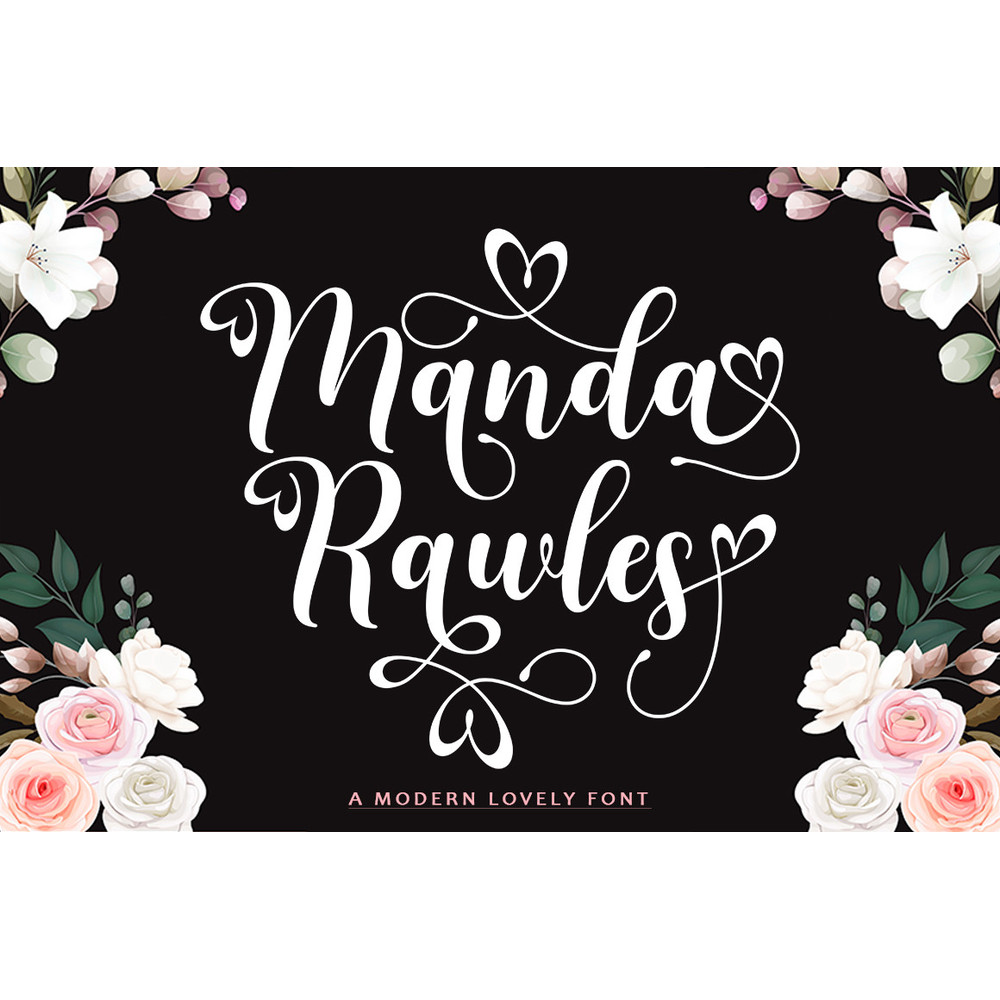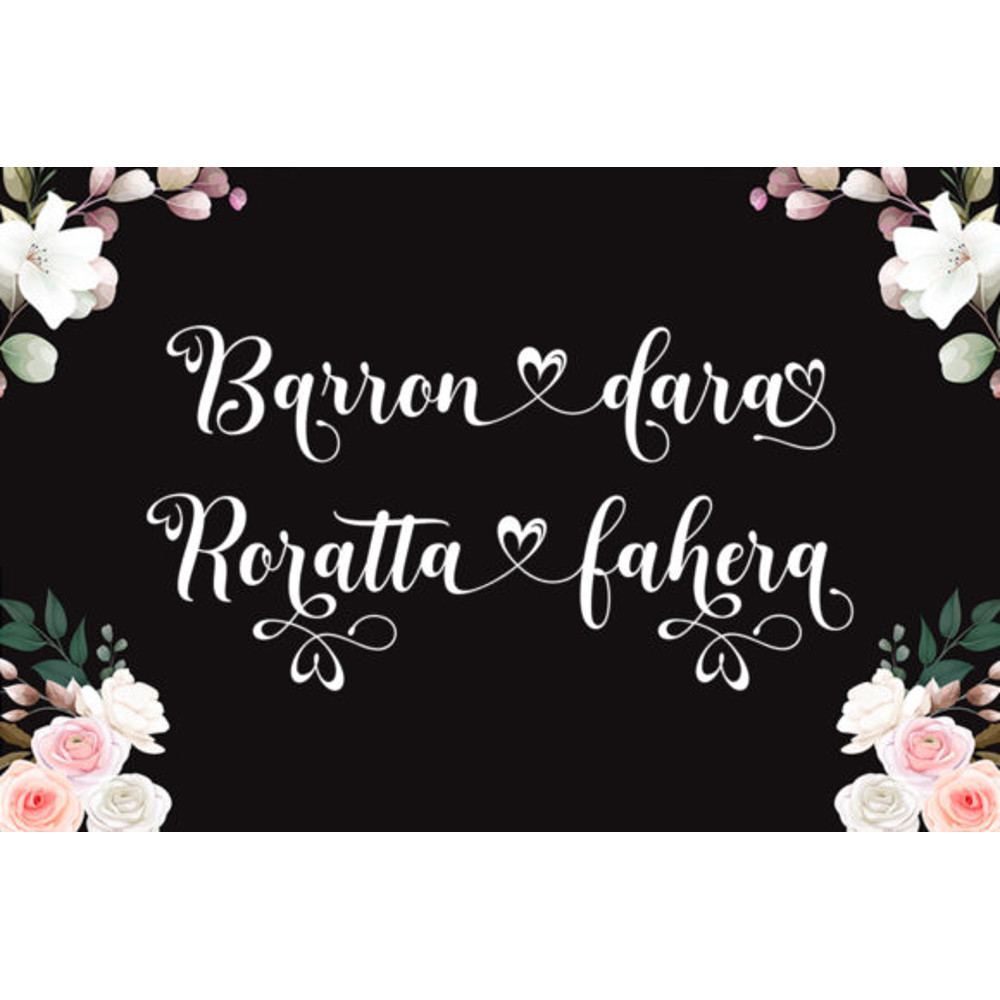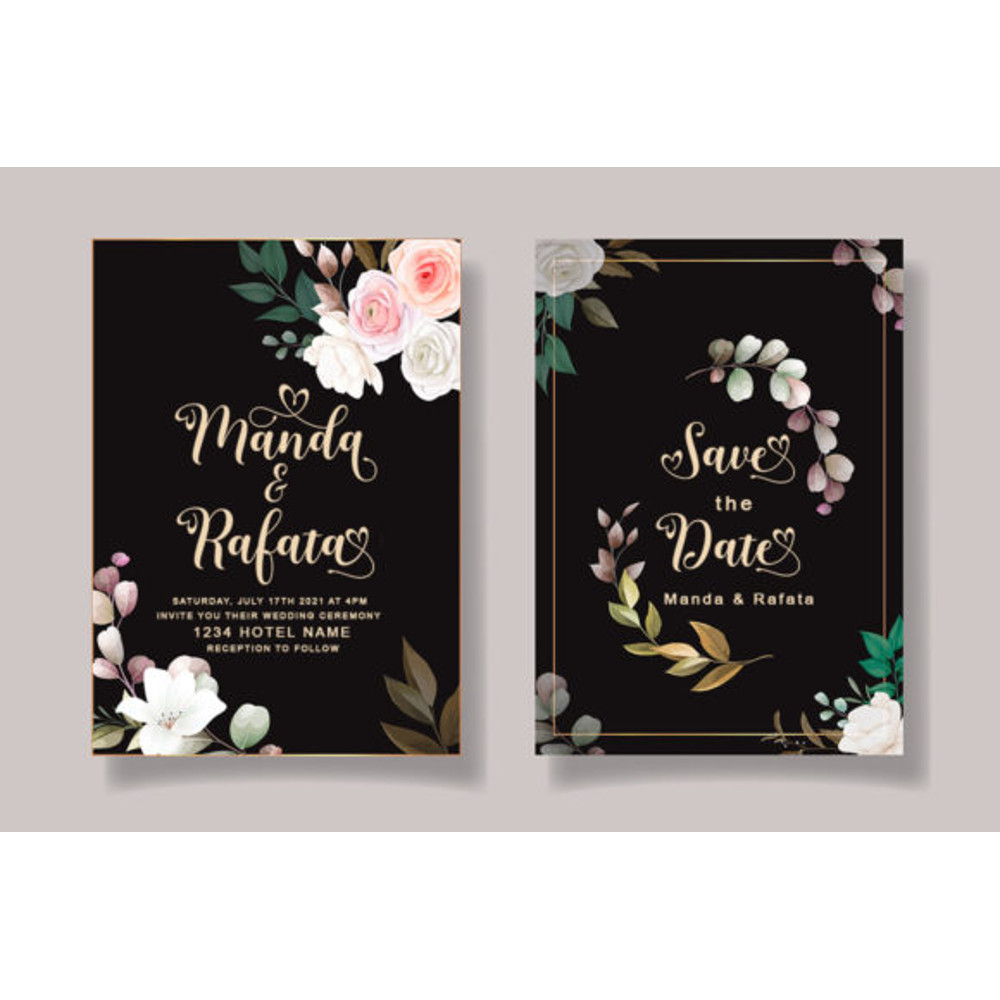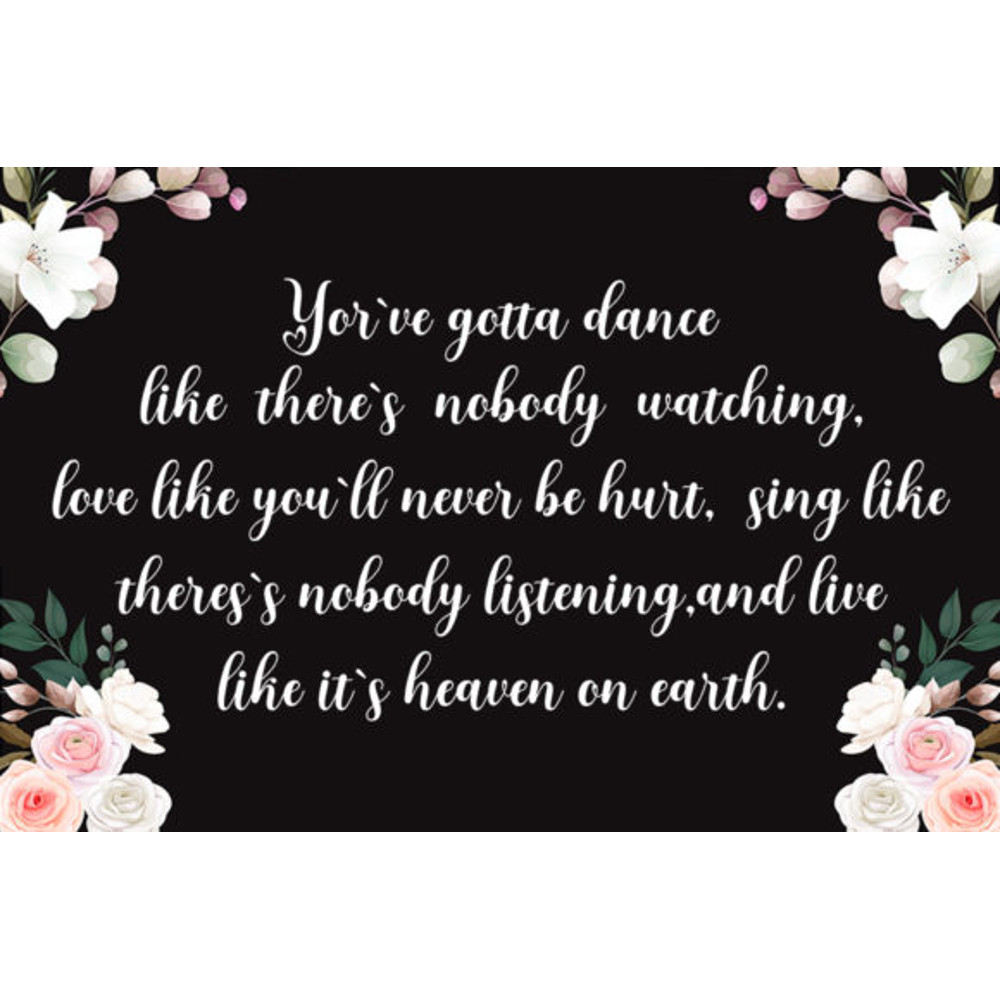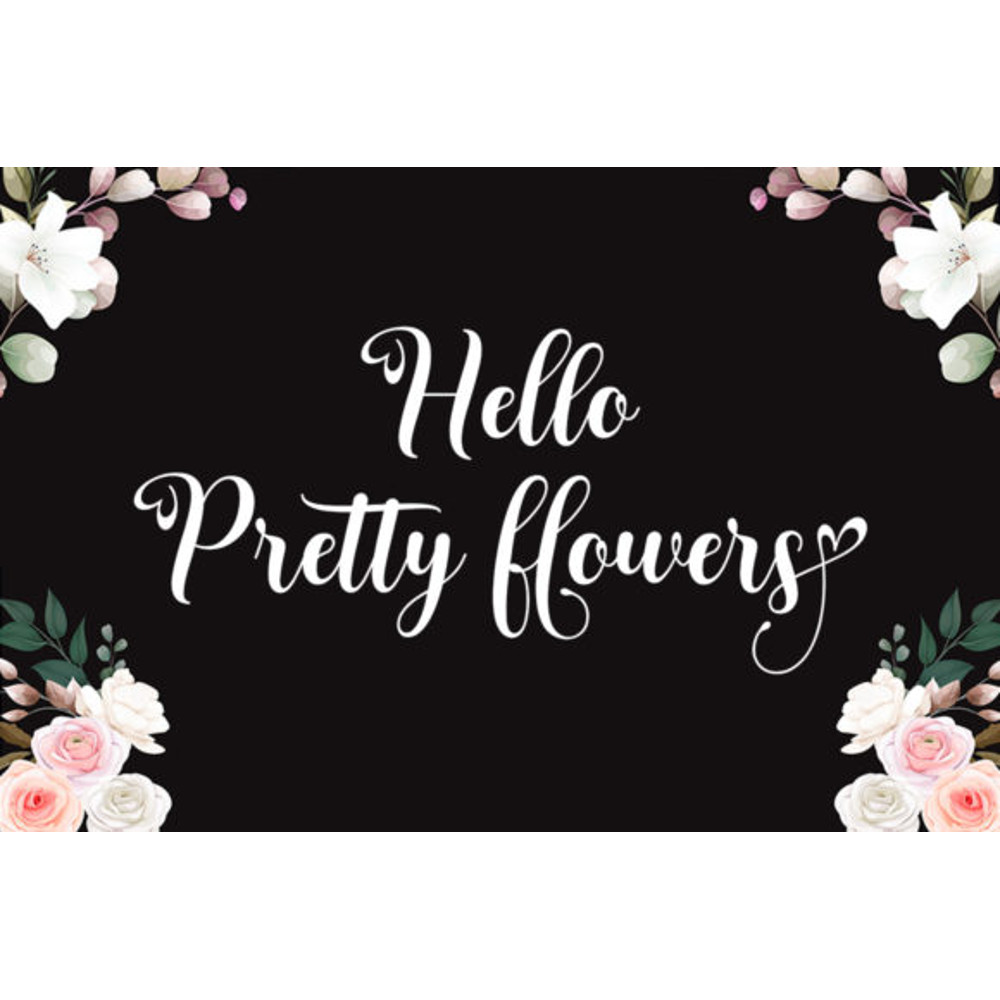
Manda Rawles is a dazzling script font. Whatever the topic, this font will be a great asset to your font library, as it has the potential to enhance any creation. This font is PUA encoded which means you can access all of the glyphs and swashes with ease!